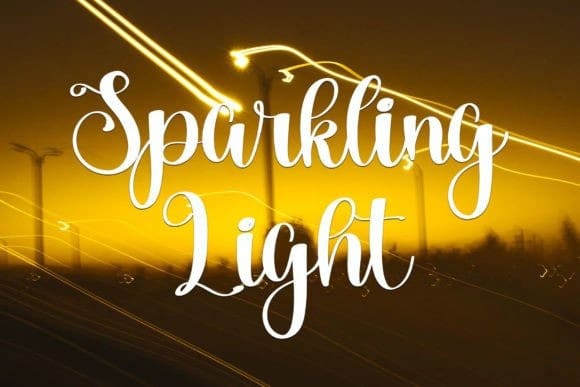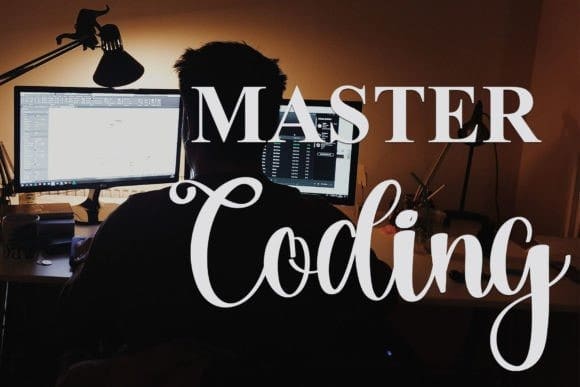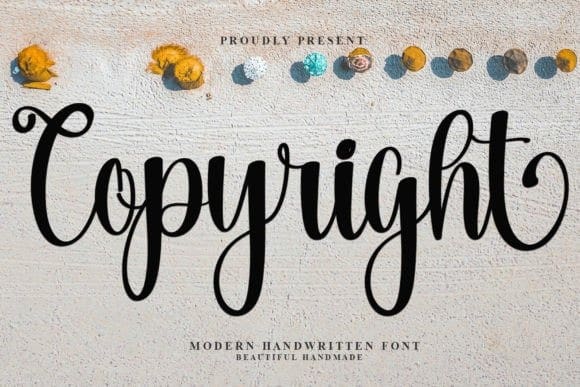
Copyright Script Font
Copyright Script Font is a cute handwritten font with a fun and quirky personality. Its irregular and playful letterforms create a sense of whimsy and individuality, making it perfect for designs that require a touch of uniqueness. Its natural, handwritten style adds a charming and personal feel to any project.